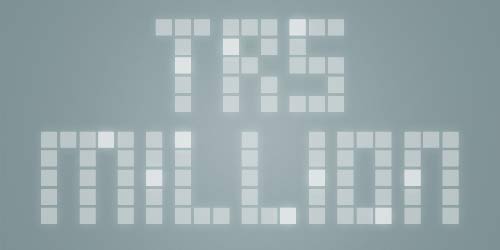
Font name: | TRS Million |
TRS-Million Regular is a free, pixel headline font. TRS-Million Twinkle is an optional dot layer available for purchase. Both fonts can be overlaid with different colors to simulate worn out LEDs, different colored LEDs, electronic glitches & stuff. In OpenType savvy applications, the placement of the dots will appear to be somewhat random. This font includes a license that allows free commercial use: sometimes referred to as a desktop license. This allows you to install the font on a computer and use it to create posters, web graphics, game graphics, t-shirts, videos, signs, logos and more. Read the license agreement for details. If you'd like to embed this font in an app, ebook, on the web or anything that's not covered by the desktop license agreement, visit the link below. You'll find distributors who offer different types of licenses or you can contact me for help. http://typodermicfonts.com/trs-million-twinkle/ This free font has an optional "twinkle layer". Check out the rest of the family through the link above. |